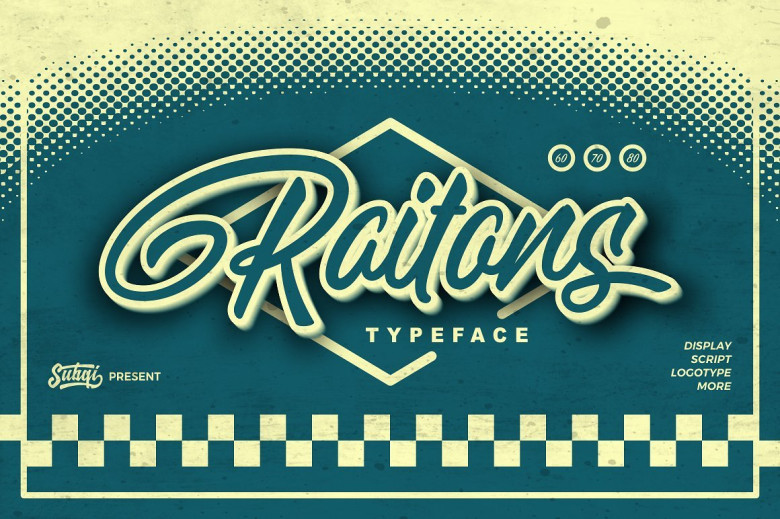
Raitons Script Font
Raitons Script – Free Demo
Hello friend, let me introduce a display script font, perfect for many display purposes! Introducing Raitons Script Font. Raitons designed and shared by Subqi Std. Works well on both modern and vintage style. You can check the preview samples for trigger some ideas maybe. So beautiful on invitation like greeting cards, branding materials, business cards, quotes, posters, and more!